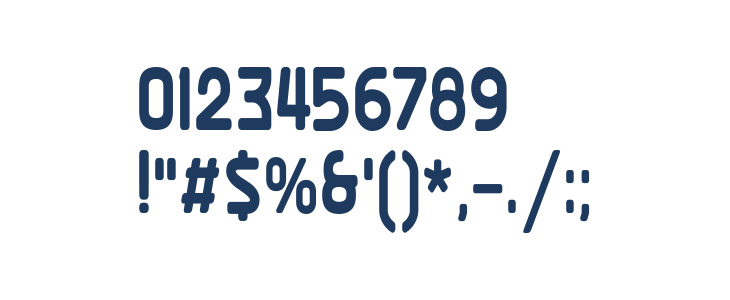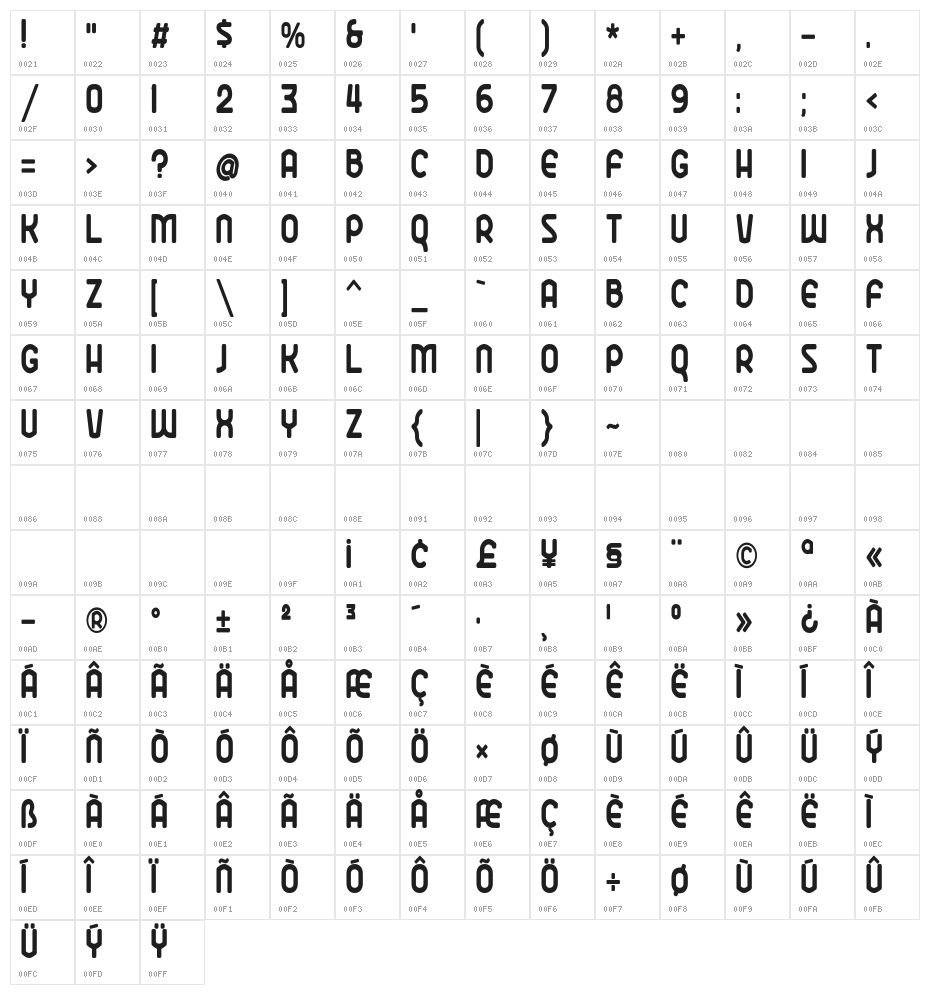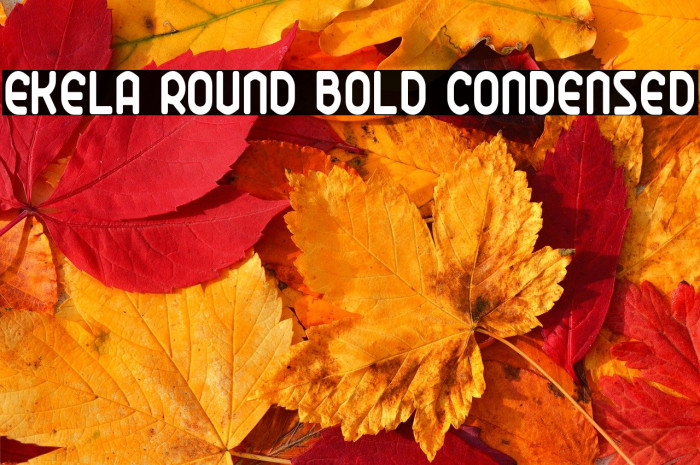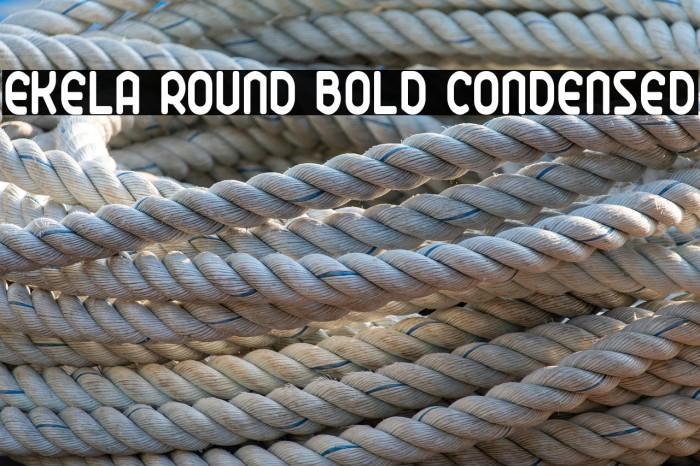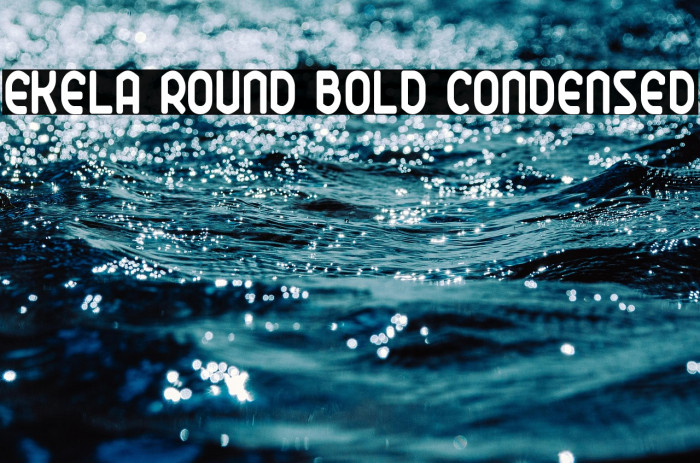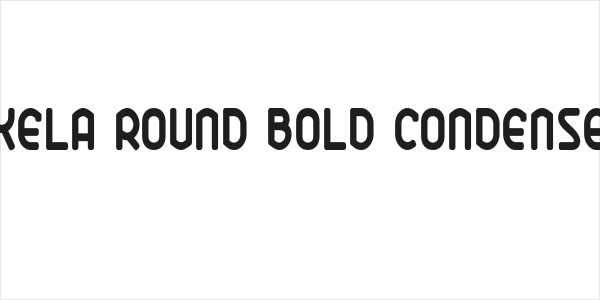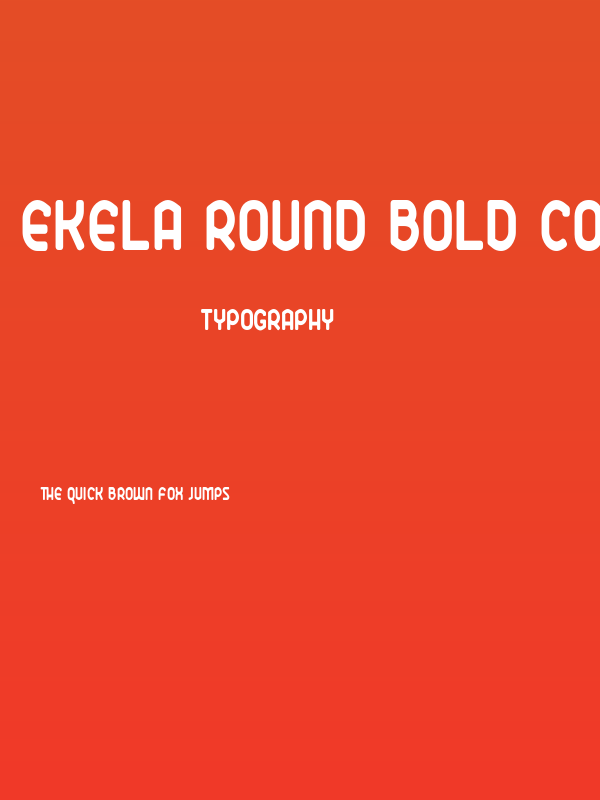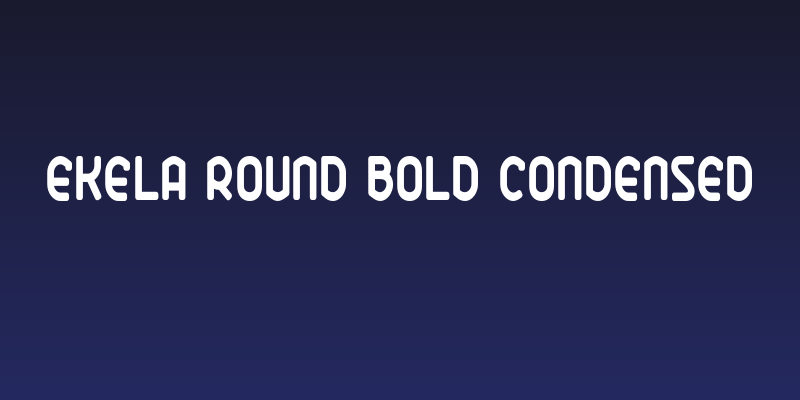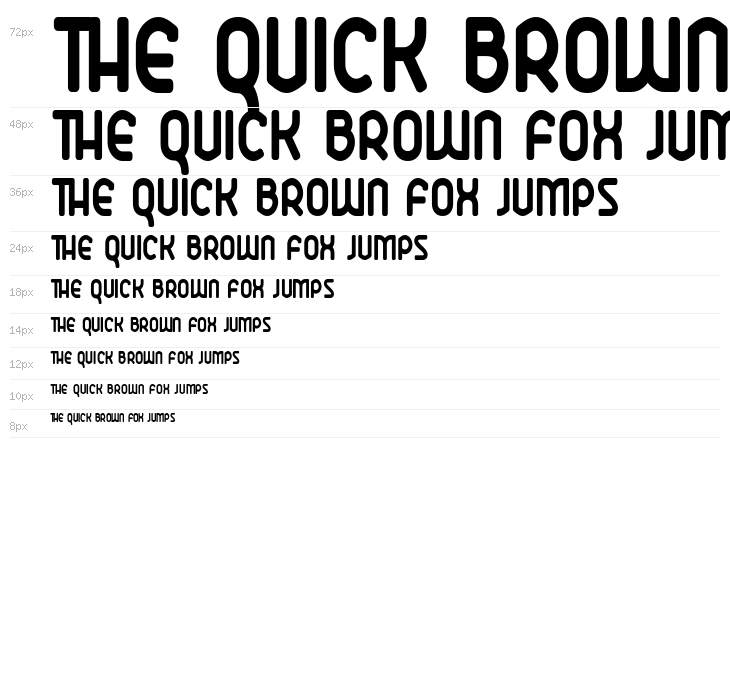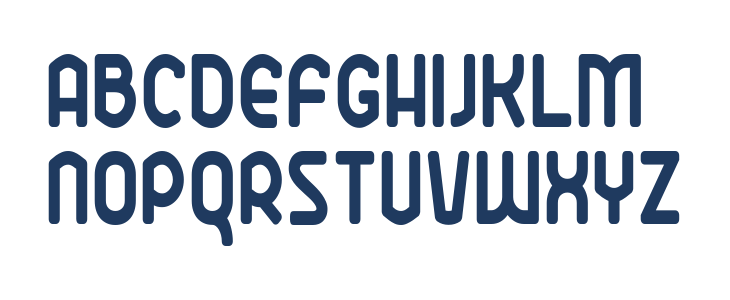
Ekela Round Bold Condensed Font
Ekela Round Bold Condensed Description
This font features a bold and rounded style, characterized by its condensed letterforms that create a strong and impactful visual presence. The rounded edges give it a friendly and approachable feel, while the bold weight ensures it stands out in any design. The uniformity in stroke width provides a consistent and clean look, making it suitable for various applications. Its condensed nature allows for efficient use of space, making it ideal for headlines and titles where space is limited. The font includes a full set of uppercase and lowercase letters, numerals, and a variety of special characters, ensuring versatility in design projects.
| Proposed Projects | Ideal for branding, headlines, posters, and packaging where a strong and approachable typeface is needed. |